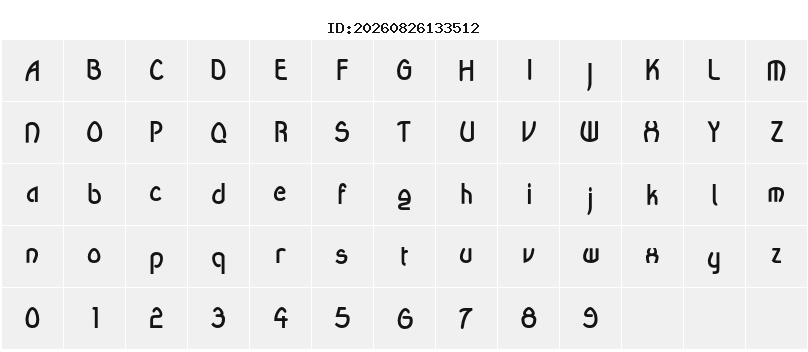
Wanda Preview
• Font Name: Wanda
• Full Font Name: Wanda-Bold
• PostScript Name: Wanda-Bold
About Wanda.otf
Wanda.otf is a modern, elegant sans-serif font designed for ultimate readability and visual harmony. Perfect for branding, headlines, web design, and print materials.